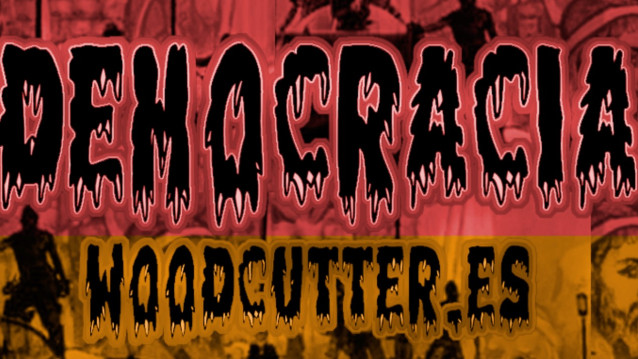
Democracia Font
Democracia Font is the ultimate horror display font! It caters to a global audience. It is perfect for posters, marketing materials, creepy movie titles, Death metal logos, Halloween crafts and a variety of creepy projects.
The Bride of Spain.